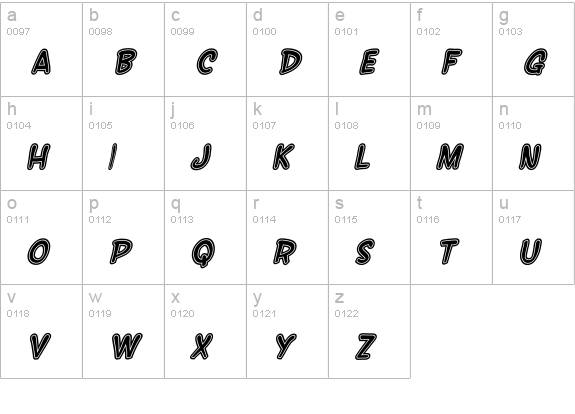
SF Wonder Comic Inline Italic Font Details
SF Wonder Comic Inline Italic is a distinctive, italic variant in the SF typeface family \xE2\x80\x94 well suited to design and typography projects.
Introducing SF Wonder Comic Inline Italic, a captivating font that effortlessly combines the boldness of comic book lettering with a stylish twist. This unique font is sure to grab attention and add a touch of excitement to any design project. With its sleek and dynamic lines, SF Wonder Comic Inline Italic exudes a sense of energy and movement, making it the perfect choice for titles, logos, and headlines. Its italicized form adds a sense of flair and playfulness, enhancing the overall visual impact of your designs. One of the best features of SF Wonder Comic Inline Italic is that it is completely free! You read that right - this incredible font can be yours without spending a dime. Simply head over to FontsMarket.com and download it freely, unlocking endless creative possibilities. Whether you're a professional designer or a hobbyist, SF Wonder Comic Inline Italic is a must-have addition to your font collection. Its versatility allows it to be used in a wide range of design projects, from comic books and graphic novels to posters, websites, and more. Don't miss out on the opportunity to elevate your designs with SF Wonder Comic Inline Italic. Download this remarkable font today, free of charge, at FontsMarket.com and let your creativity soar to new heights.